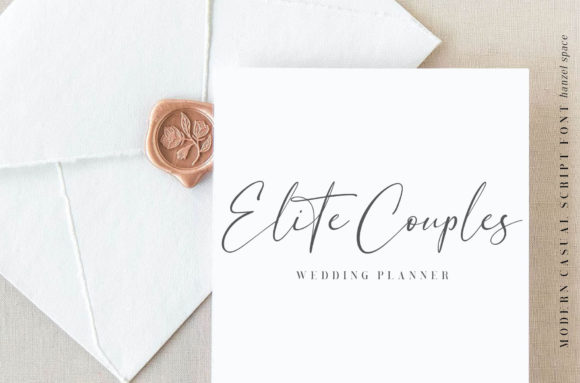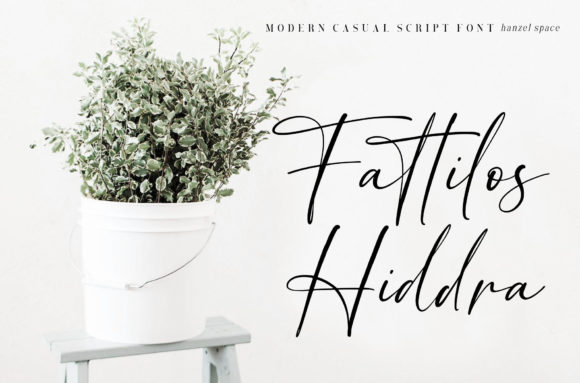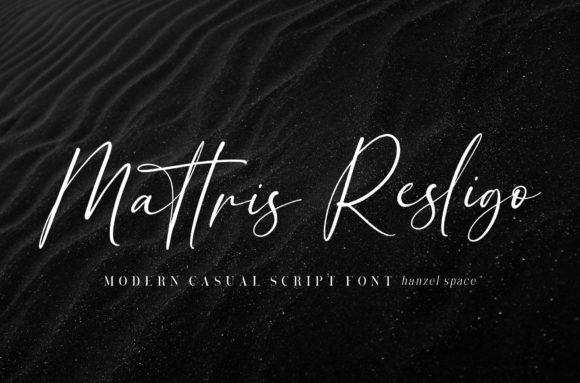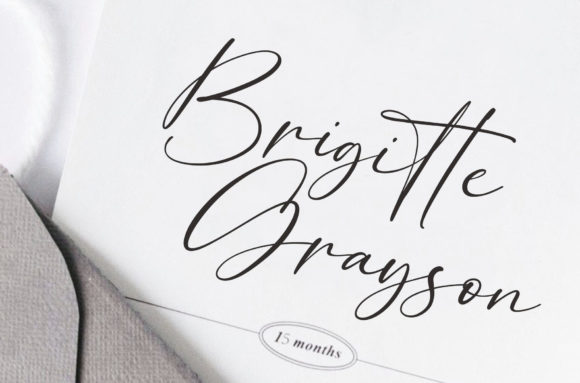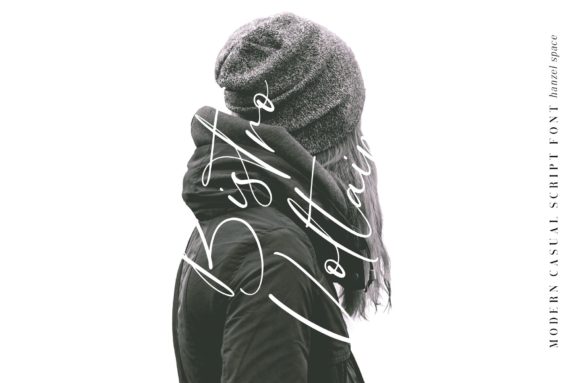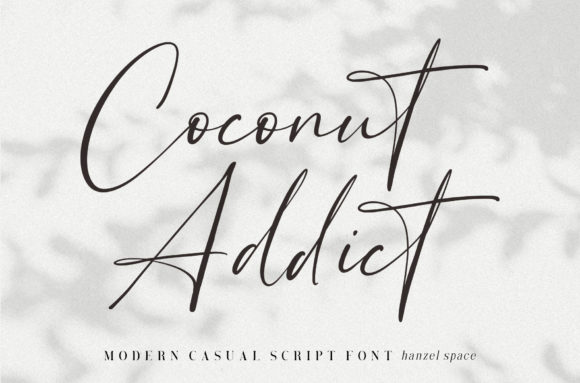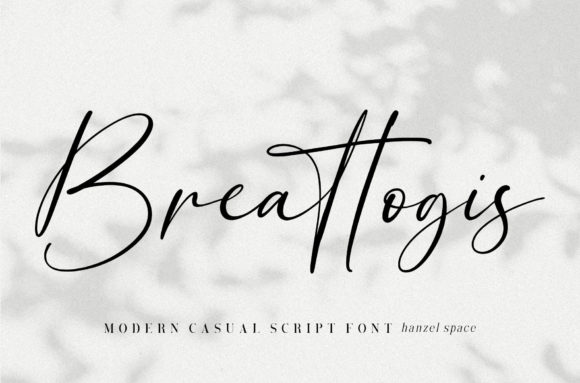
Introducing Breattogis Font: Elevate Your Designs with Modern Sophistication
In the world of typography, a font can make or break a design. For designers, crafters, and anyone looking to add a touch of elegance to their projects, the Breattogis font is a game-changer. This modern script font is designed with contemporary, sophisticated accents that are sure to elevate your branding, wedding invites, taglines, cards, labels, and logos to the next level.
What Makes Breattogis Font Stand Out?
Breattogis is not just another script font; it’s a versatile typeface that combines modernity with classic sophistication. Its unique design elements make it perfect for a wide range of applications, from high-end branding to beautiful wedding invitations. The font’s clean lines, flowing curves, and precise craftsmanship ensure that your designs look polished and professional.
Key Features of Breattogis Font
- Modern Script Design: Breattogis boasts a modern script design that adds a touch of sophistication to any project. Its contemporary look makes it ideal for designs that require a fresh, updated feel.
- Wide Range of Applications: Whether you’re working on branding, wedding invites, taglines, cards, labels, or logos, Breattogis is the perfect choice. Its versatility makes it suitable for various design projects.
For designers and crafters, having access to high-quality fonts is essential. Breattogis offers several benefits that make it a valuable addition to your font library:
- Time-Saving: With Breattogis, you can quickly create stunning designs without spending hours on typography. The font’s sophisticated look ensures that your projects stand out.
- Consistency and Professionalism: Using a high-quality font like Breattogis ensures consistency across your designs, which is crucial for building a strong brand identity. Its professional look helps you create polished, high-end projects.
How to Use Breattogis Font in Your Projects
Incorporating Breattogis into your design workflow is straightforward. Here are some tips on how to make the most of this versatile font:
- Branding: Use Breattogis to create elegant logos, business cards, and marketing materials that reflect your brand’s modern and sophisticated image.
- Wedding Invites: Add a touch of luxury to your wedding invitations and stationery with Breattogis. Its beautiful script design sets the tone for a memorable event.
- Taglines and Headlines: Make your taglines and headlines pop with Breattogis. Its contemporary look ensures that your message grabs attention.
- Cards and Labels: Whether you’re designing greeting cards, gift tags, or product labels, Breattogis adds a touch of elegance and sophistication.
Breattogis font is a powerful tool for designers and crafters looking to add a modern, sophisticated touch to their projects. With its clean design, PUA encoding, and versatility, it’s perfect for a wide range of applications. By incorporating Breattogis into your design workflow, you can create stunning, professional-looking projects that stand out. Elevate your designs with Breattogis and experience the difference a high-quality font can make.